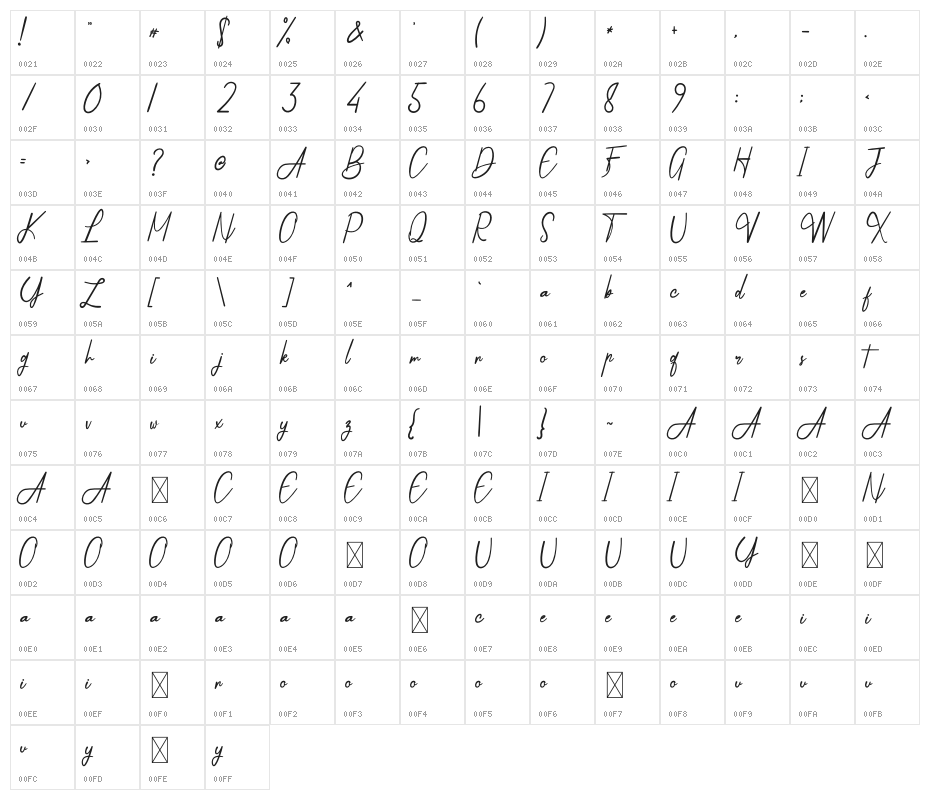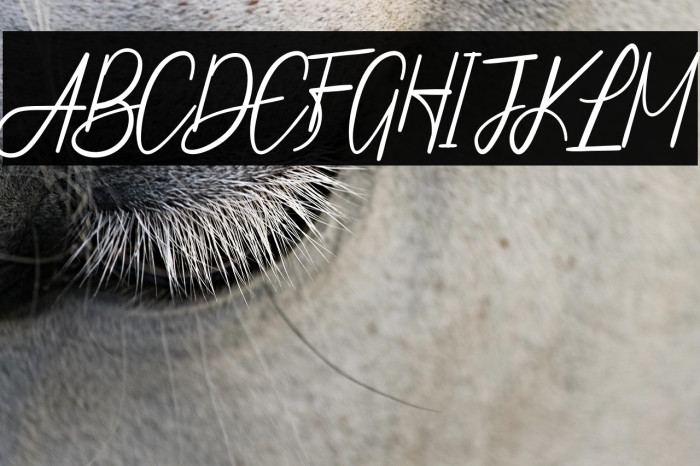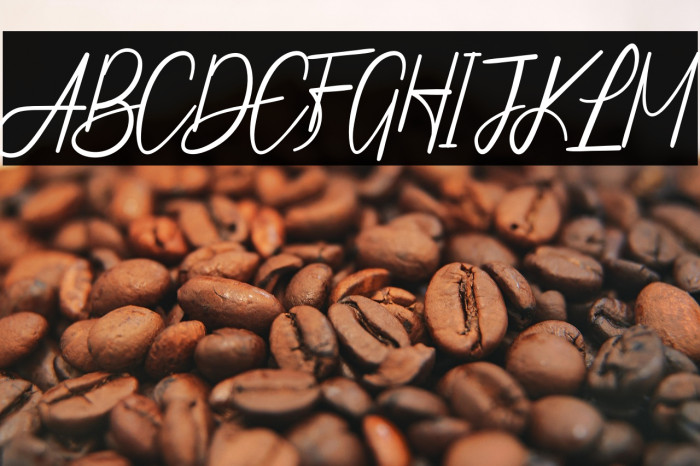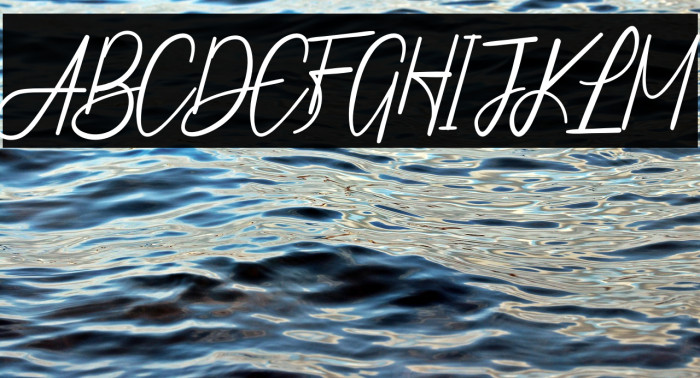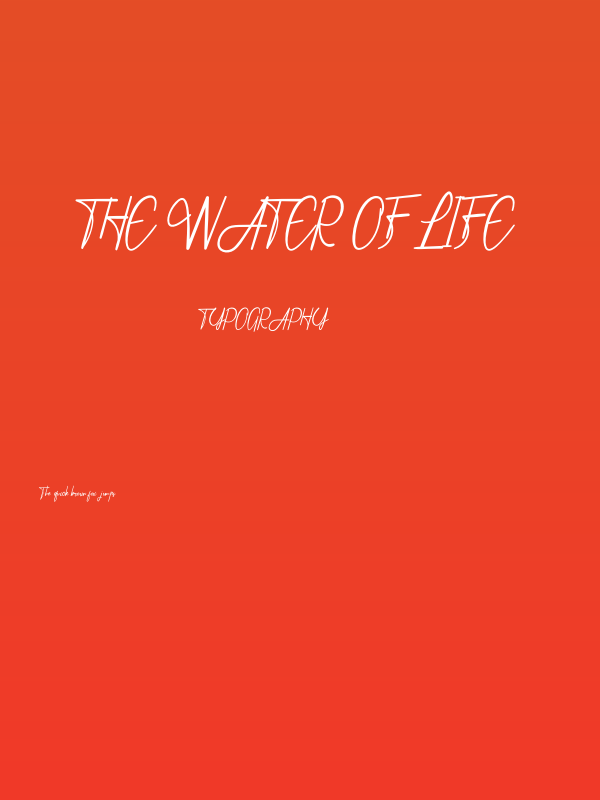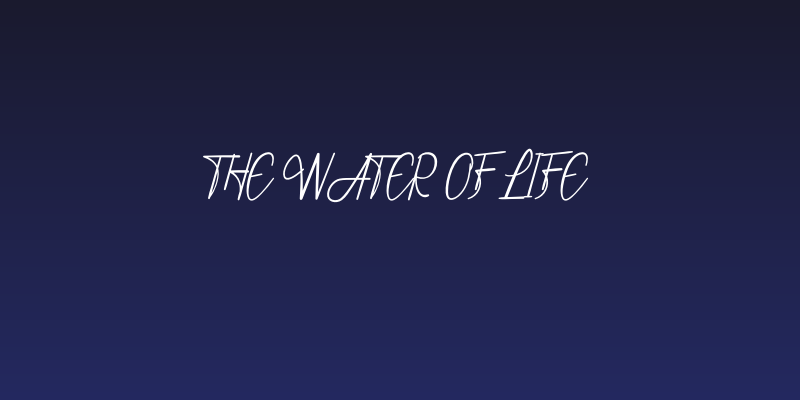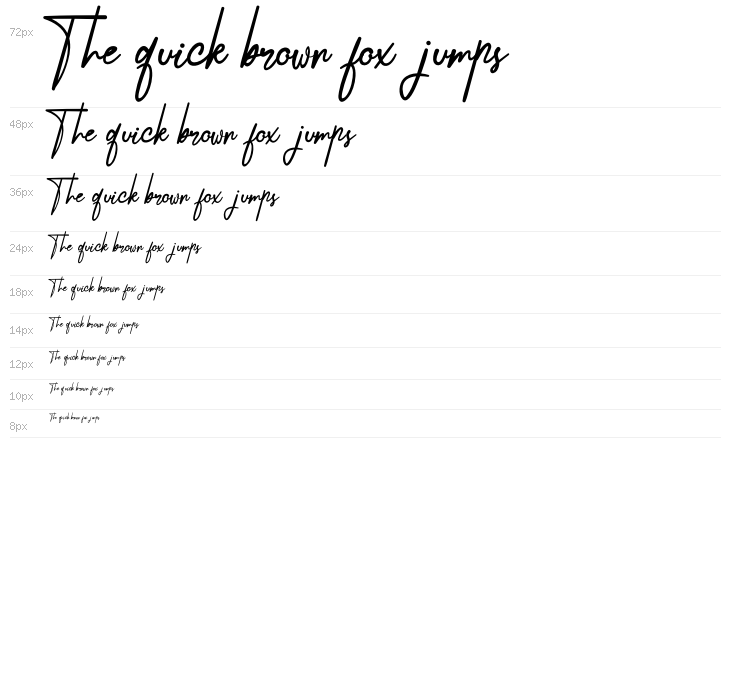
The Water Of Life Font
The Water Of Life Description
This font exudes a lively and dynamic character with its handwritten style. The letters are elegantly elongated and slightly slanted, giving a sense of movement and fluidity. The uppercase letters are bold and expressive, while the lowercase letters maintain a consistent flow, enhancing readability. The numbers are clear and distinct, matching the overall style of the alphabet. Special characters are creatively integrated, maintaining the font's playful yet sophisticated appearance. This font is perfect for projects that require a personal touch, combining elegance with a modern flair.